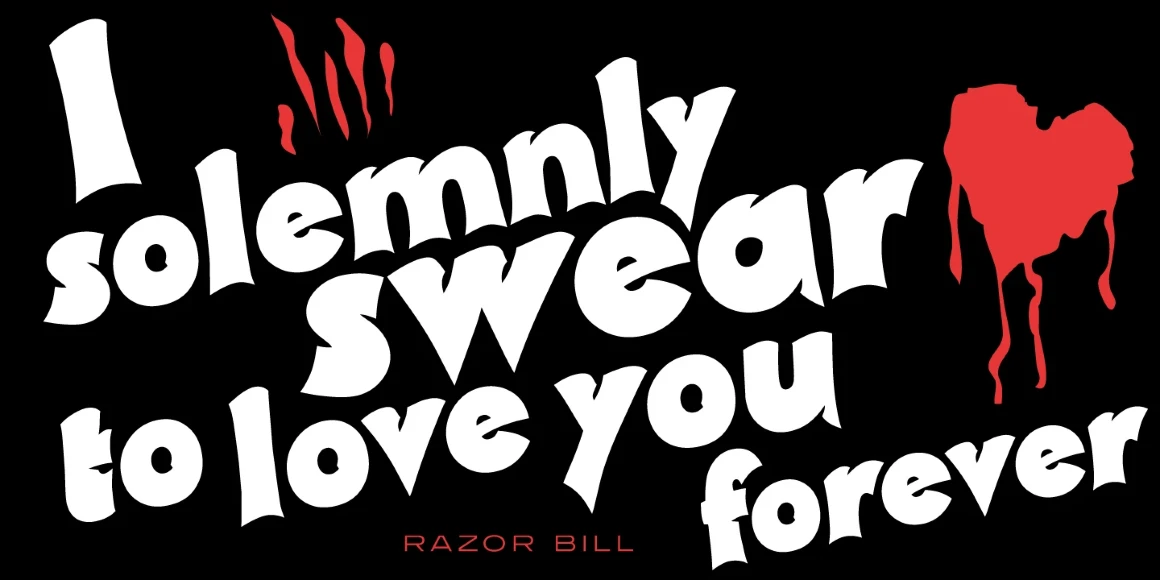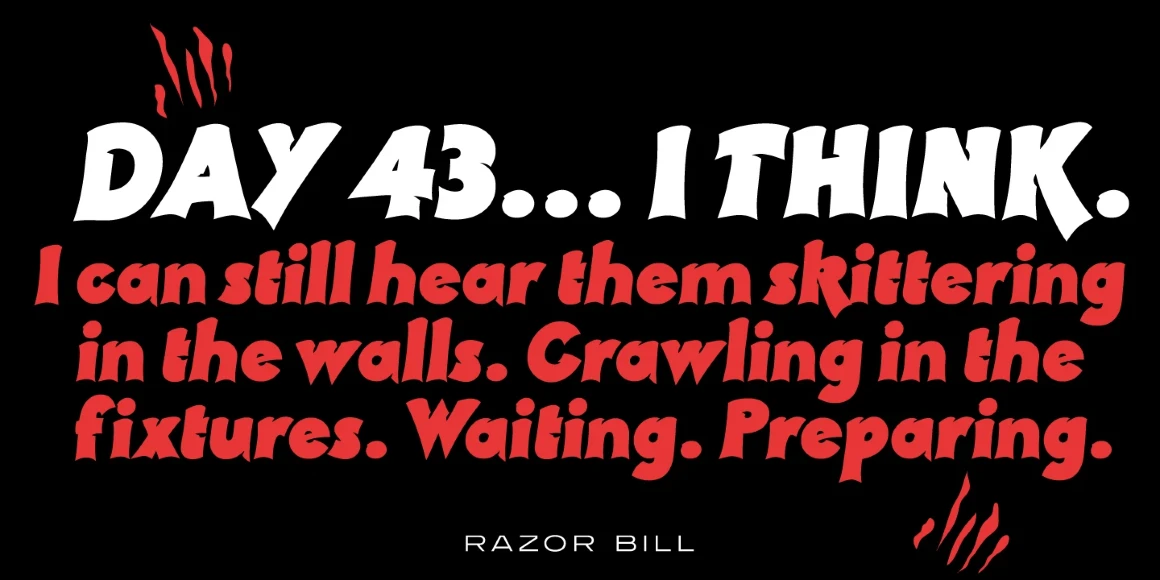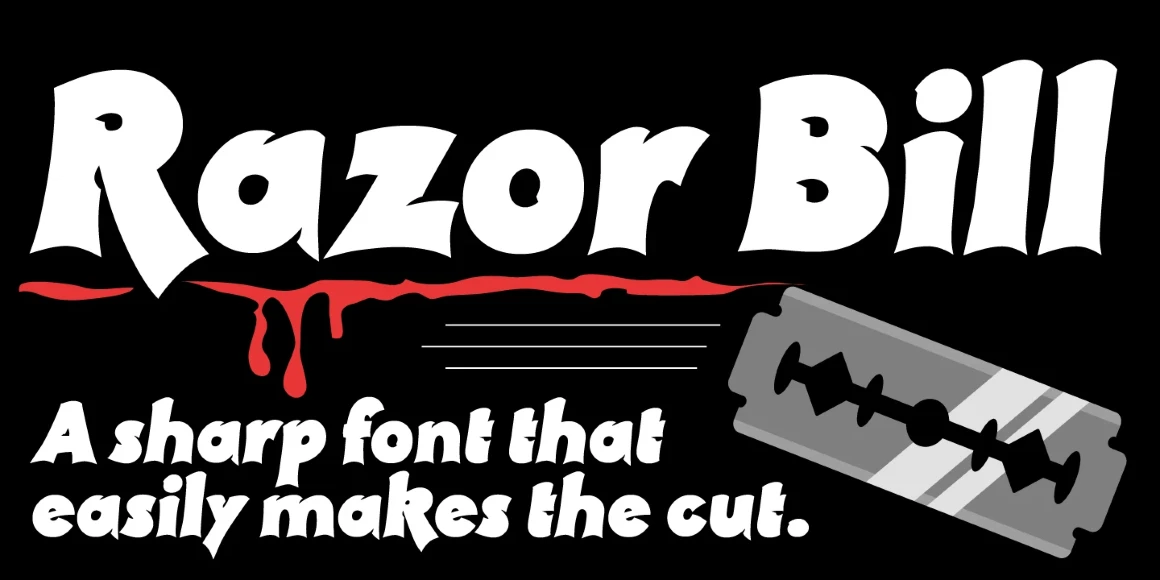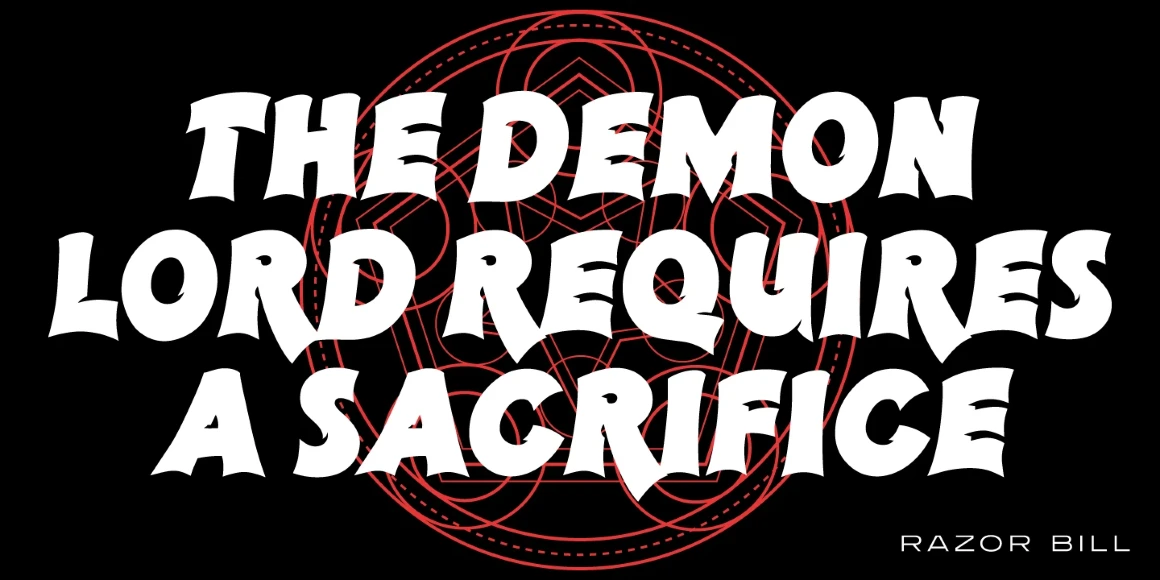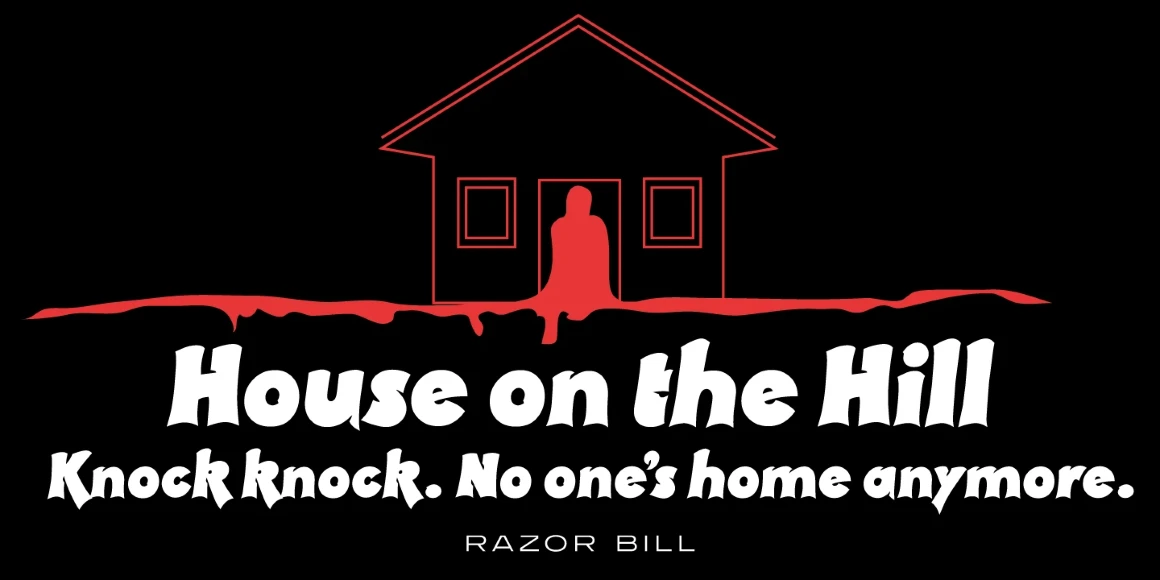
Razor Bill
Razor Bill Regular
Razor Bill is a decorative typeface. Its digital version was crafted and released by Steve Jackaman (ITF) in 1997, and is a revival of the original typeface from Face Photosetting in London circa 1972. Razor Bill has a supernatural or horrific feel, which is underscored by the small cuts into the typeface. Whether it be at display or subhead sizes, this typeface is a cut above the rest!